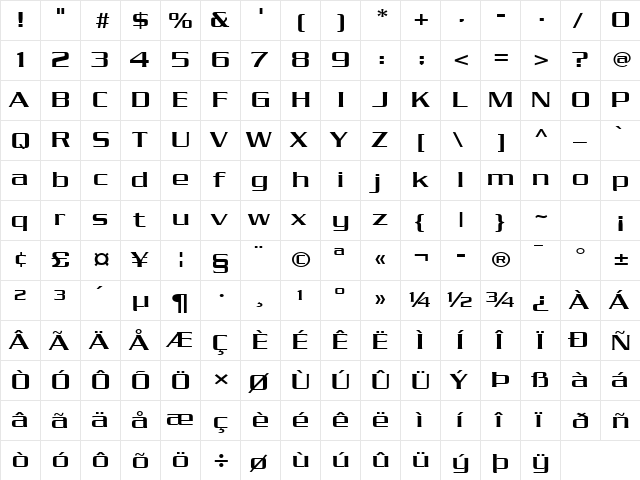
Chaney-Extended Normal Font Preview
Chaney-Extended Normal
Chaney-Extended Normal Font Details
Design Context for Chaney-Extended Typeface
Chaney-Extended offers clean, dependable letterforms without strong stylistic allegiance, making it a practical choice for designers who need flexibility.